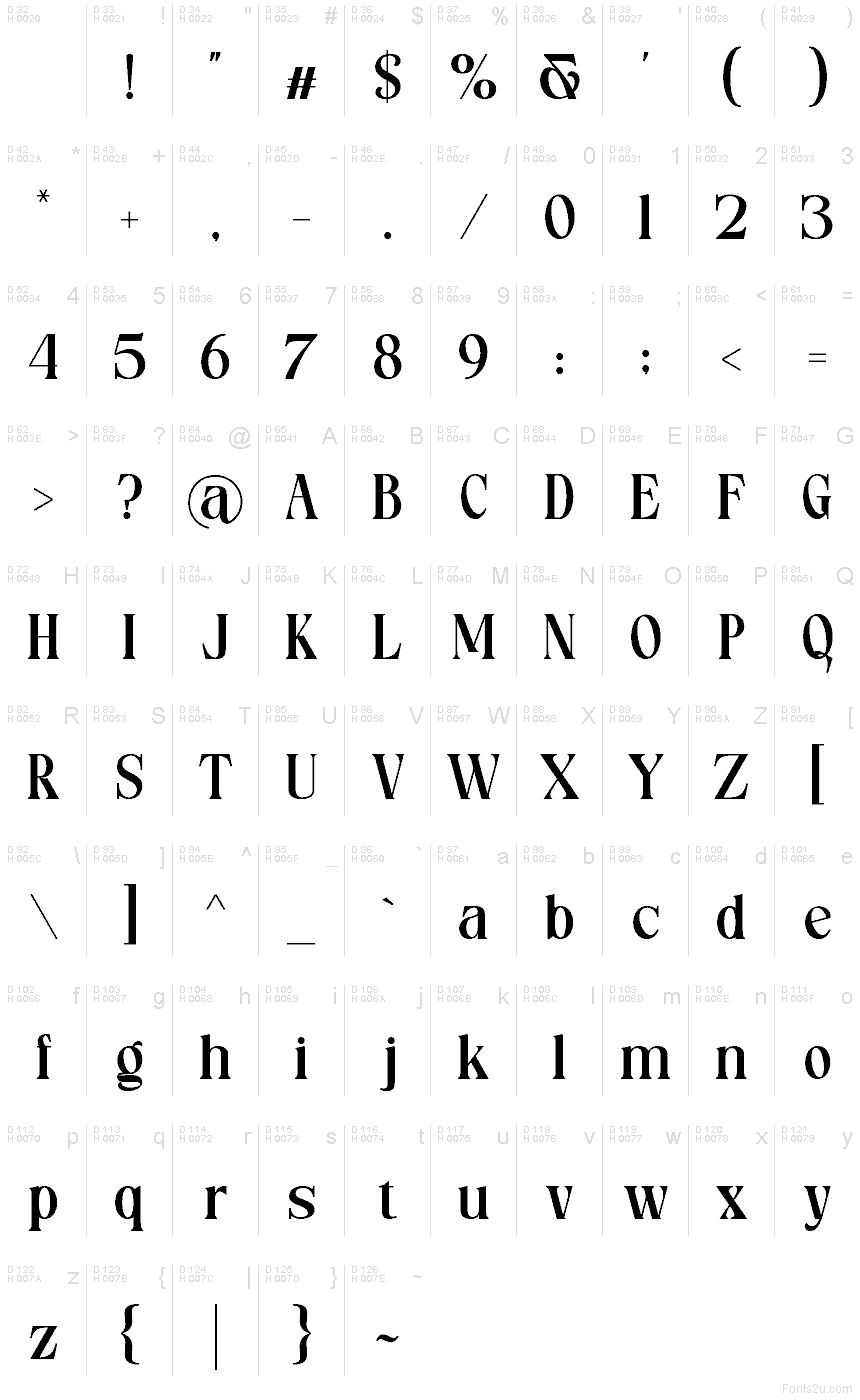
MuocasDisplaySerif-Regular
Muocas font by Ferdiansyah is a classic and sophisticated display serif font. It includes refined proportions and subtle curves that add to its elegance. Each character carries powerful charisma when implemented, making this typeface useful for professional purposes.